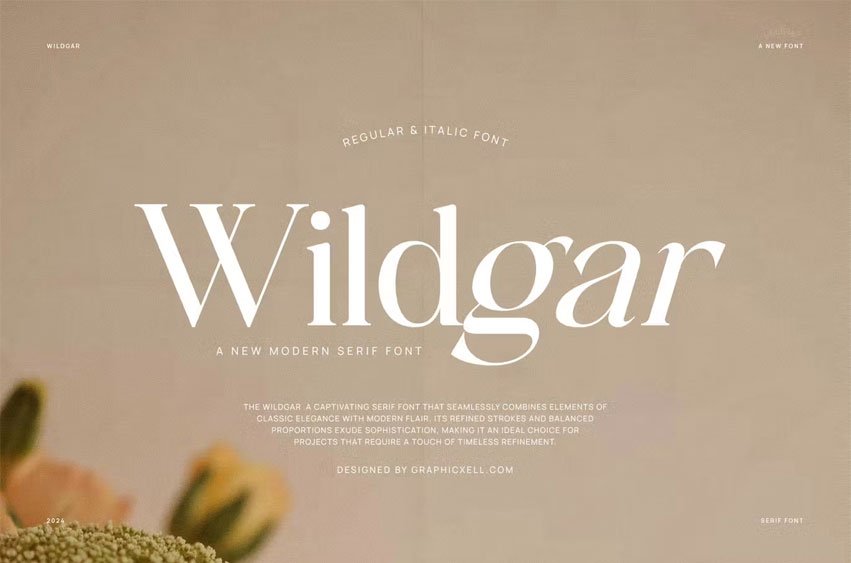
Wildgar Font is a chic serif font combining classic elegance and modern style. The combination brings out ideal font styles and shapes for various projects. The delicate strokes connect the parts of this letter and make it fancier and more proportional when you apply them. Look at the uniqueness you can find in every Wildgar letter, especially in regular and italic form. The regular font looks classy with a classical touch. It helps you make the display font more stylish and attractive. On the other hand, italic wildgar font gives an ancient touch to typography. So, the font looks more classic but still classy. Wildgar font is used in numerous designs. This font is casual, luxurious, and stylish with a modern touch. Mention it for wedding font, invitations, branding, fashion websites, logos, and product packaging. If you used to work in fields like making wedding invitations, branding, and others, it would be a great deal to choose Wildgar font.